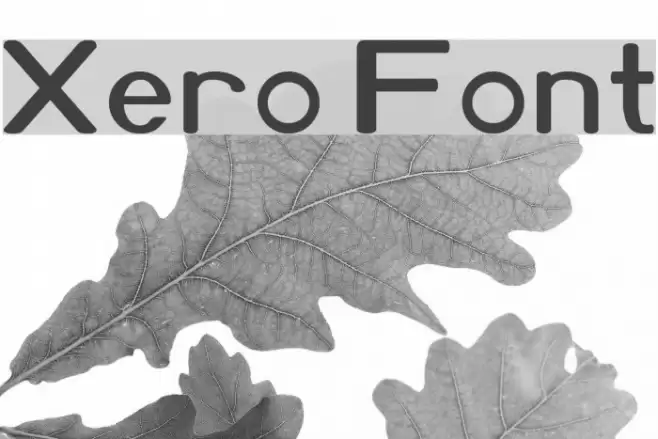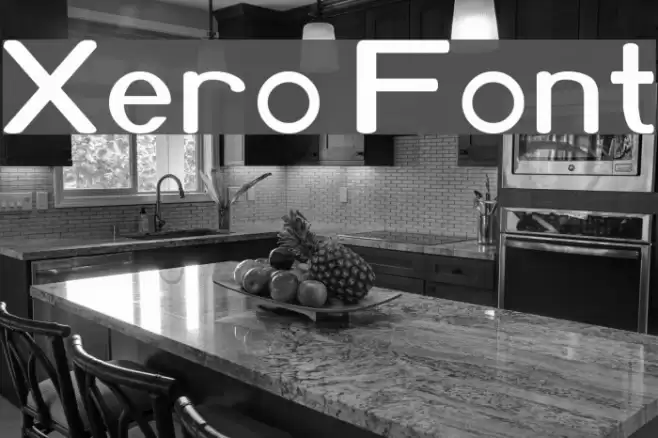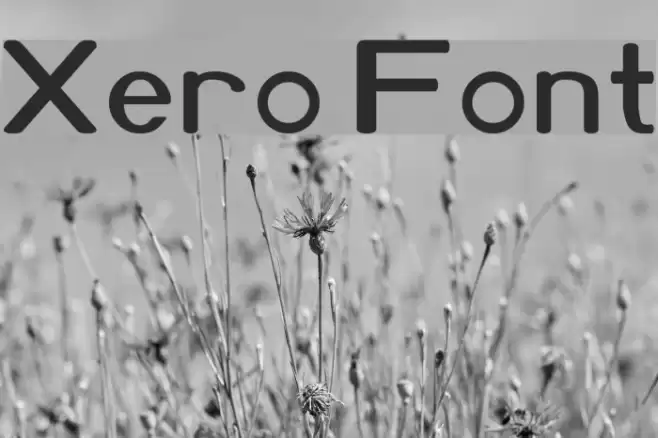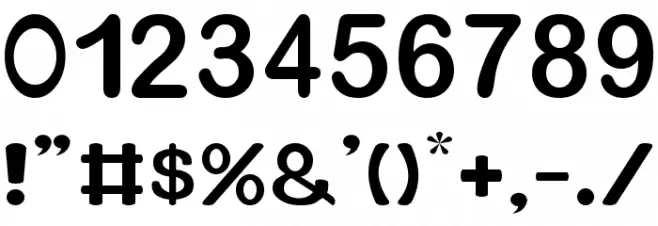
Xero Font
Xero Description
This font features a clean and modern sans-serif style with smooth, rounded edges and uniform stroke widths. The characters are well-proportioned, offering a balanced and harmonious appearance. The uppercase letters are bold and assertive, while the lowercase letters maintain a friendly and approachable look. The numerals are clear and easy to read, making them suitable for various applications. Special characters are included, enhancing the font's versatility. Overall, this font conveys a sense of simplicity and clarity, making it ideal for both digital and print media.
A modern sans-serif font with rounded edges and uniform strokes from Uncategorized fonts.
- Proposed Projects: Ideal for branding, web design, advertising, and user interfaces.